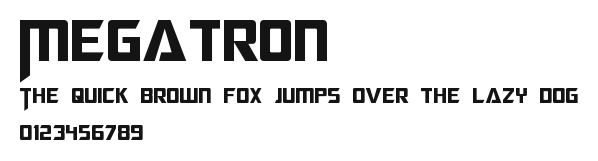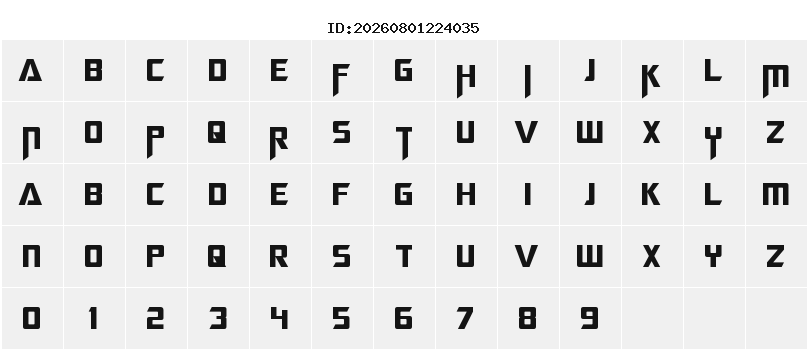
• Font Name: Megatron
• Full Font Name: Megatron
• Version: Version 1.00 July 21, 2011, initial release
• Designer: Neale Davidson
About Megatron.ttf
Megatron.ttf is a modern, elegant sans-serif font designed for ultimate readability and visual harmony. Perfect for branding, headlines, web design, and print materials.